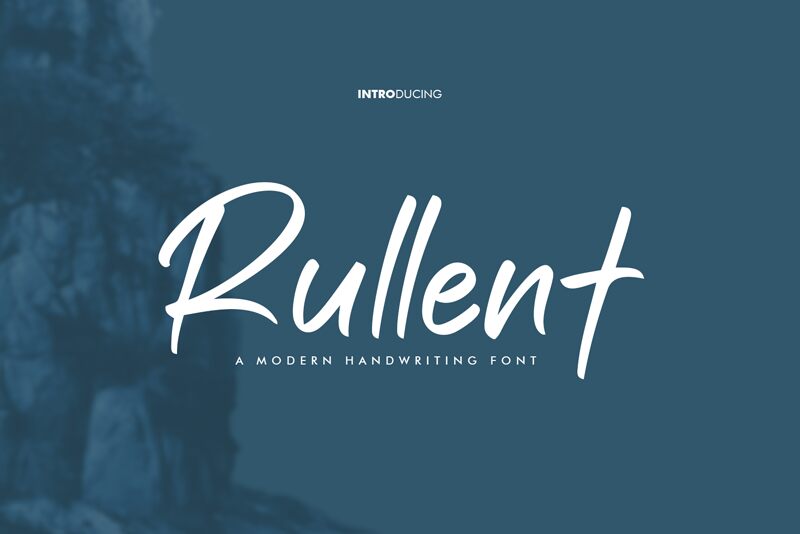
Rullent
Rullent, a captivating handwritten signature font by Khurasan, exudes an air of elegance and sophistication. With its fluid, organic lines and expressive, dynamic strokes, this font effortlessly captures the essence of a personalized, handcrafted aesthetic. The Rullent font's distinctive character and charming imperfections lend a sense of authenticity and personality to any design, evoking emotions of warmth, sincerity, and individuality.
The versatility of Rullent makes it a suitable choice for a wide range of design applications, from wedding invitations and greeting cards to product packaging and branding. Its signature-like quality lends an air of exclusivity and personalization, making it an ideal selection for luxury and high-end projects. Rullent's unique blend of refined elegance and natural, handwritten charm can elevate the visual appeal of a diverse array of design elements, ensuring a captivating and memorable user experience.